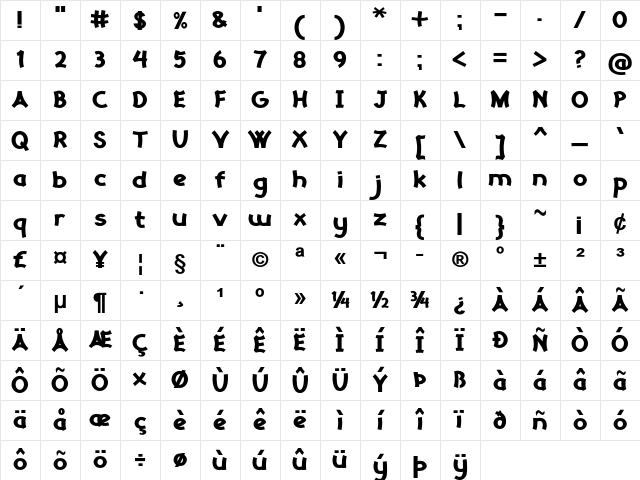
Coffeebean Bold
Coffeebean Family
Design Context for Coffeebean
Coffeebean is a composed and adaptable typeface that performs quietly and consistently across a wide range of design contexts. Its bold stroke weight gives it real presence on the page.